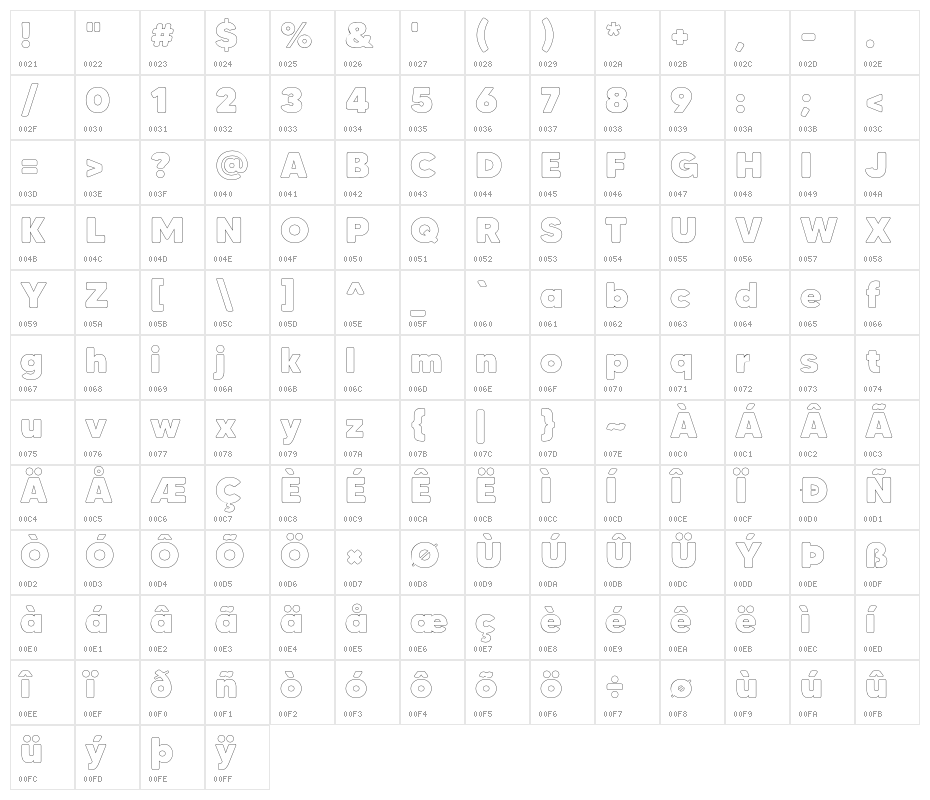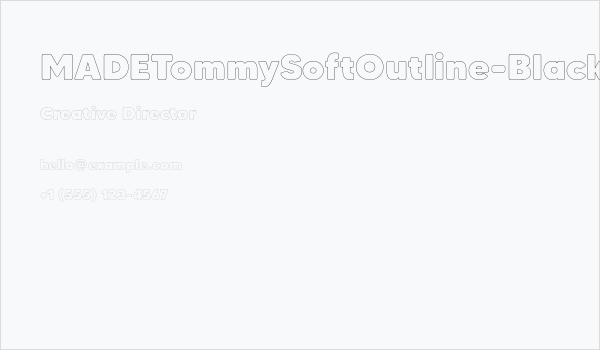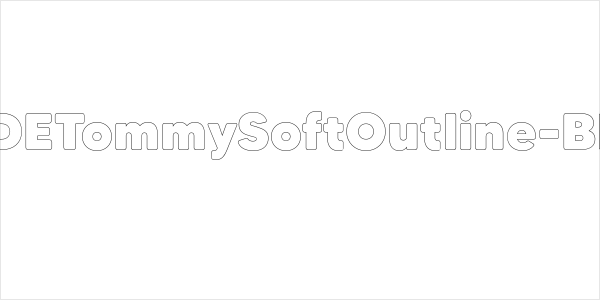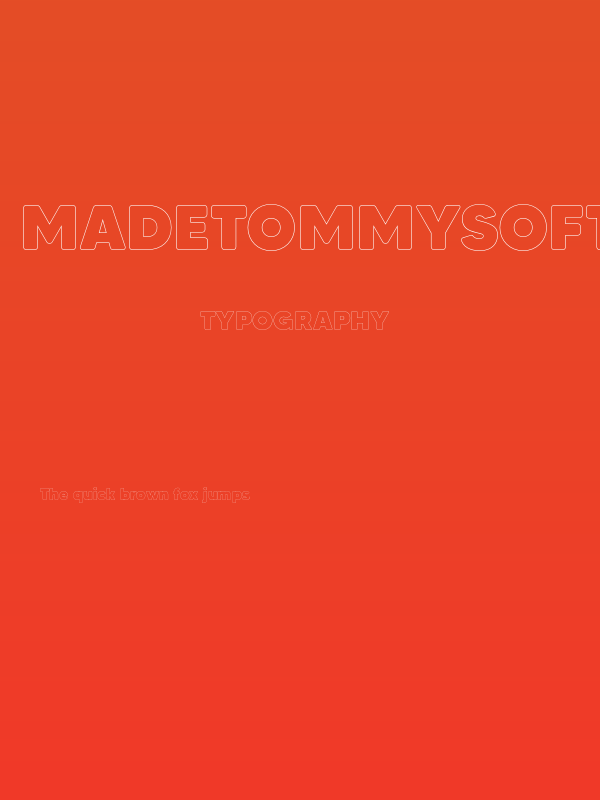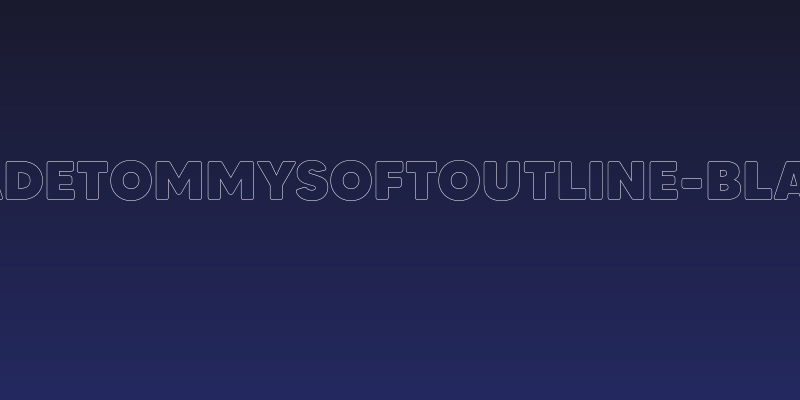
MADETommySoftOutline-Black Font
MADETommySoftOutline-Black Description
This font features a bold, rounded outline style that gives it a playful and approachable appearance. The characters are evenly spaced, maintaining a uniform look across both uppercase and lowercase letters. The numbers and special characters follow the same design principles, ensuring consistency throughout. The outline effect adds a modern twist, making it suitable for various creative applications. Its thick strokes and rounded edges contribute to a friendly and inviting aesthetic, ideal for projects that require a touch of fun and creativity.
| Proposed Projects | Ideal for children's books, playful branding, posters, and creative digital content. |